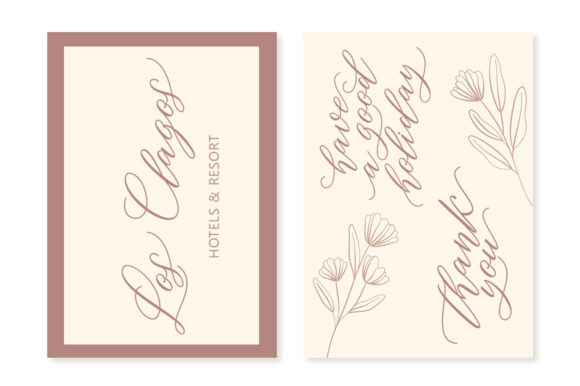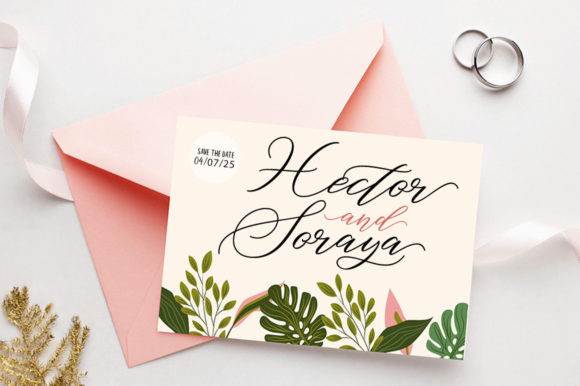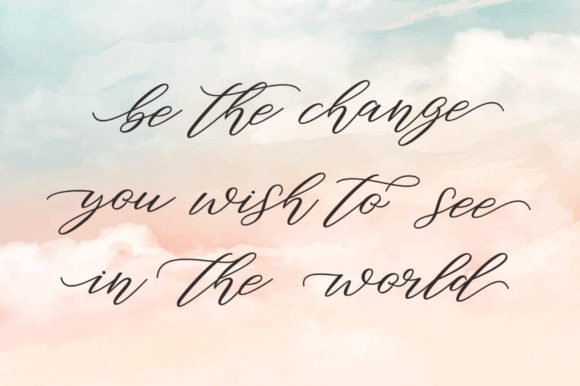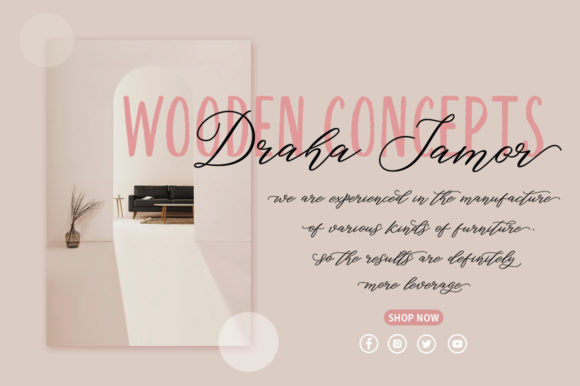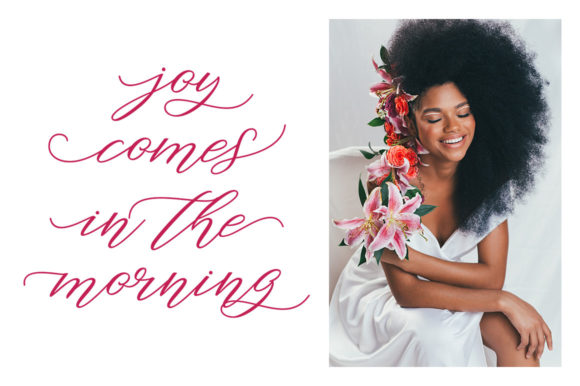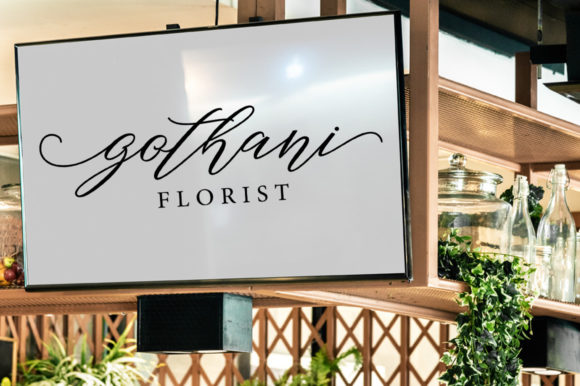
Unleashing Your Creativity with the Ceglosia Font
There’s nothing quite like the feeling of being completely lost in a design project, pouring over every detail, and watching your vision come to life. For many of us, that’s what makes the creative process so magical – the thrill of discovery, the rush of excitement, and the sense of pride when we finally see our idea take shape.
For designers looking to add a touch of luxury and elegance to their work, the Ceglosia Font is a game-changer. This wistful and sweet calligraphy typeface is designed to dance along the baseline, adding a whimsical charm to any design project. With its PUA encoding, accessing all the amazing glyphs and ligatures is a breeze, giving you the freedom to unleash your creativity and bring your vision to life.
Ceglosia Font Key Features
- Character Set: The font includes a comprehensive set of characters, including Latin, Cyrillic, and Greek alphabets, as well as punctuation marks and symbols.
- Unique Characteristics: Ceglosia Font features a distinctive, hand-drawn style with subtle imperfections, giving it a unique and humanistic feel.
Ceglosia Font Review
As a designer, I had the chance to work with the Ceglosia font and I must say it’s a unique addition to any typography collection. ✨ The font’s elegance and sophistication make it perfect for high-end branding and advertising projects. The subtle curves and lines give it a sense of luxury and refinement that’s hard to find in other fonts.
The Ceglosia font also excels in its versatility. ✨ It can be used for a variety of purposes, from body text to headings, and even for creative typography projects. The font’s adaptability makes it a great choice for designers who need a reliable and consistent font across multiple platforms.
While the Ceglosia font has many strengths, there are a few limitations to consider. ⚠️ The font’s complexity can make it difficult to read at small sizes, and the subtle curves can sometimes be lost in low-resolution displays. Additionally, the font’s luxury feel may not be suitable for every project or brand.
Overall, I would recommend the Ceglosia font to designers who need a sophisticated and elegant font for their projects. While it may not be the best choice for every situation, its unique characteristics and versatility make it a valuable addition to any typography collection.
- Elegant and sophisticated design
- Perfect for high-end branding and advertising projects
- Great for body text, headings, and creative typography projects
- May not be suitable for small sizes or low-resolution displays
- May not be the best choice for every project or brand
Tip: Use Ceglosia Font for headings and titles to add a touch of elegance to your design.
Tip: Experiment with layer styles and effects to enhance the unique characteristics of the Ceglosia Font.
Tip: Use Ceglosia Font for headings and titles to add a touch of sophistication to your presentation or document.
Ceglosia Font is ideal for:
- Business cards and branding materials
- Book covers and